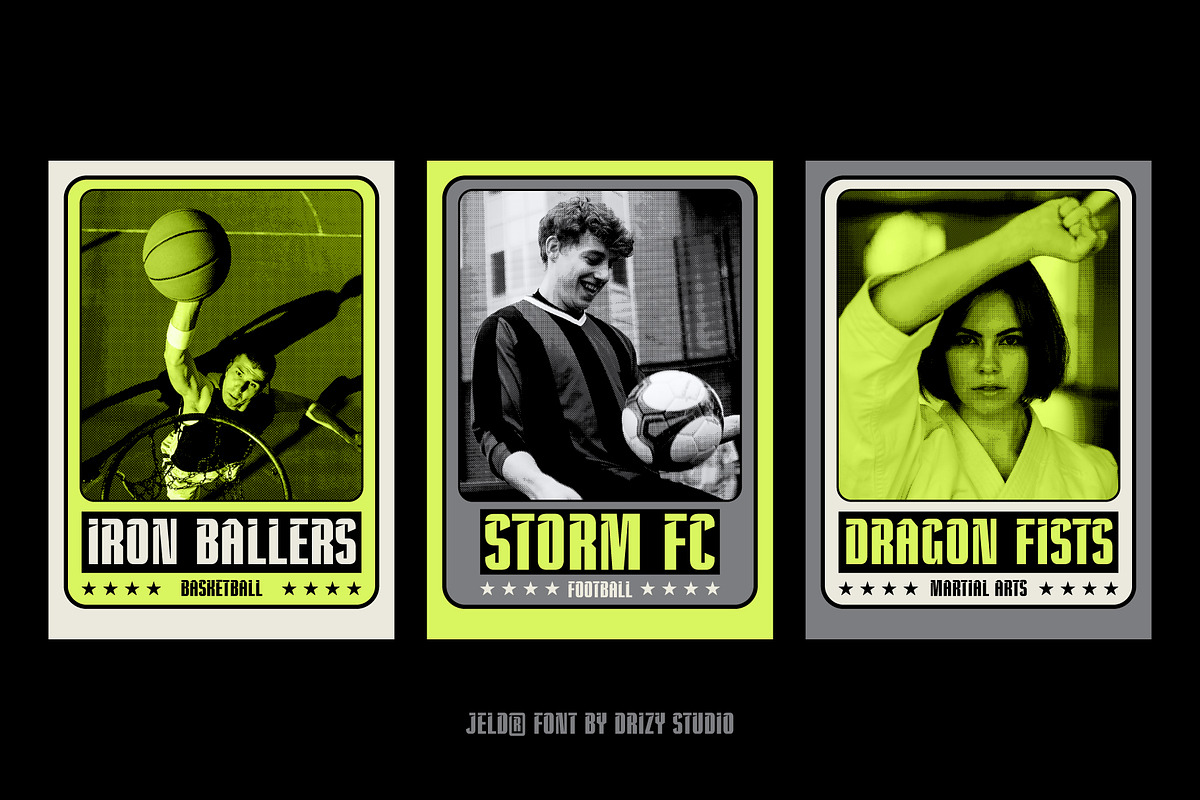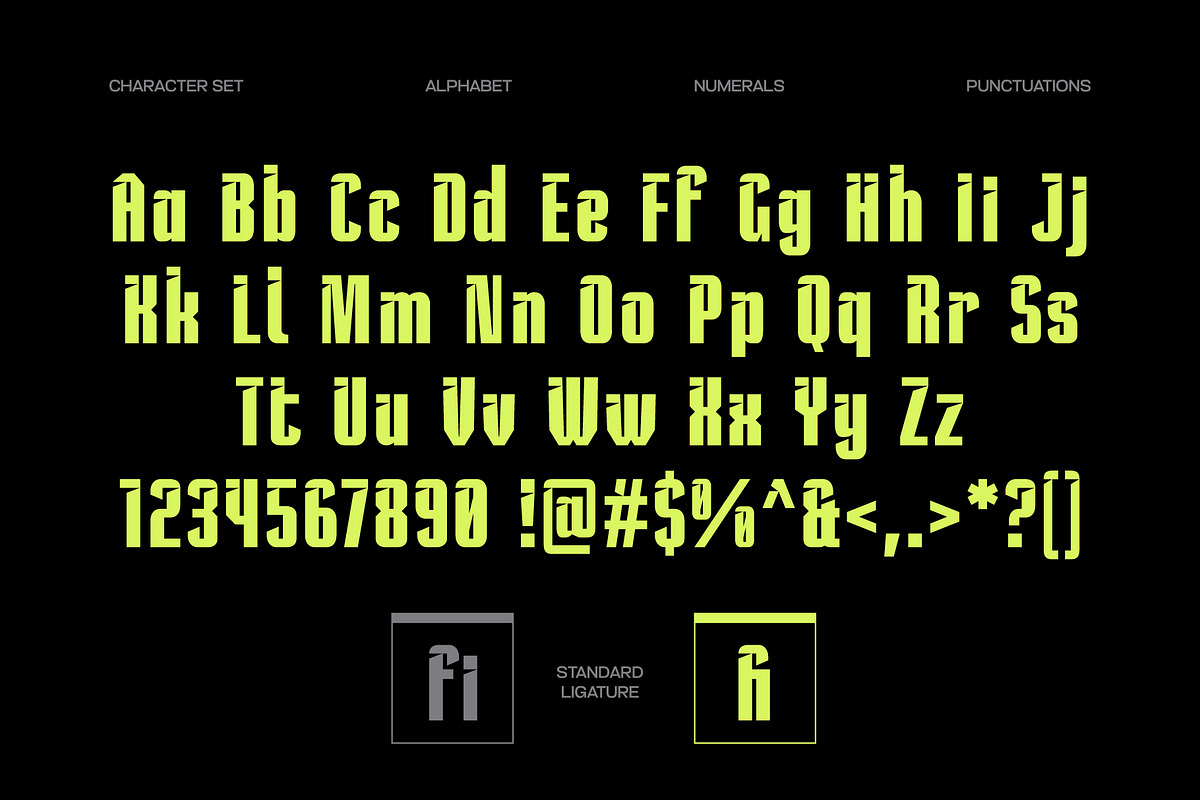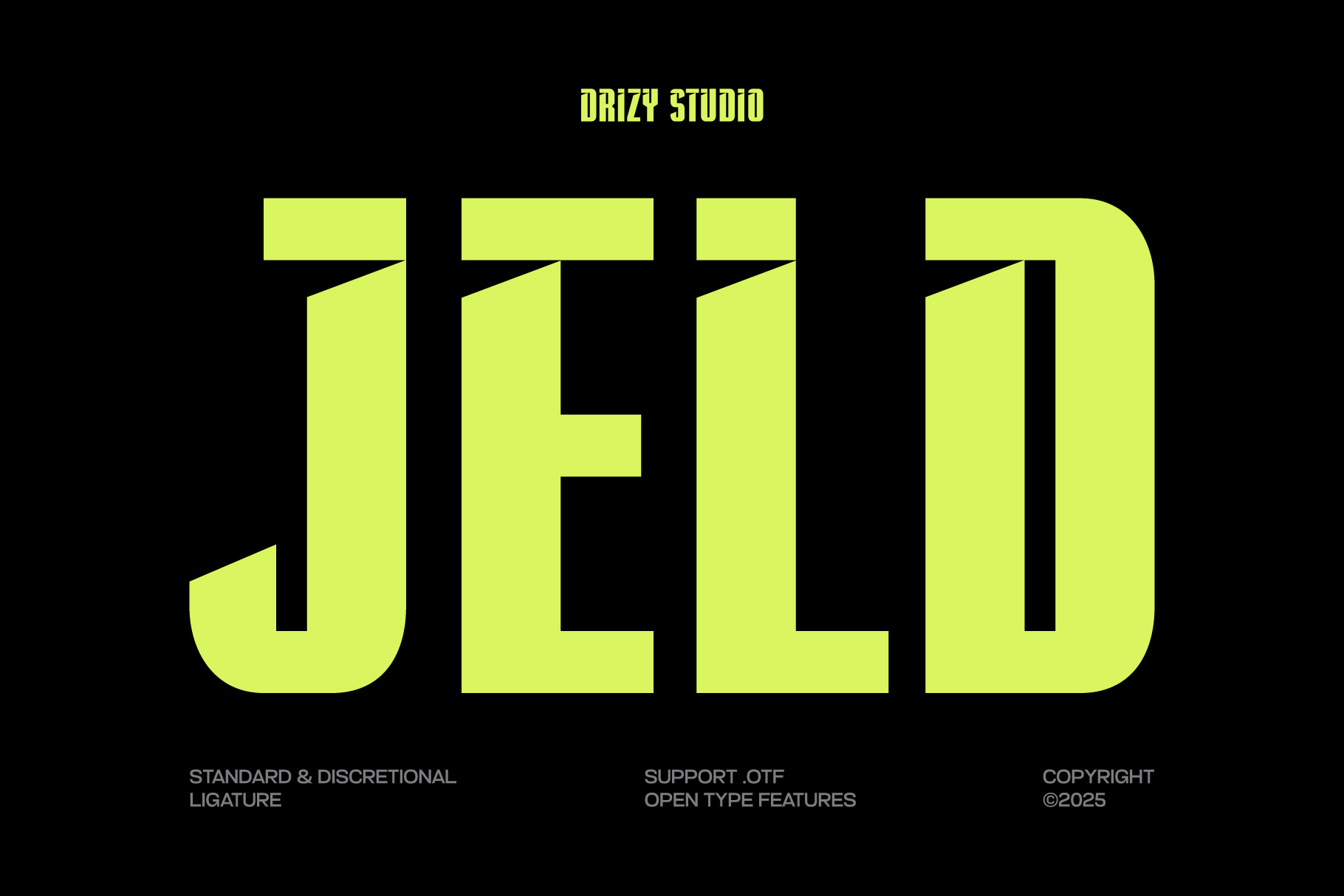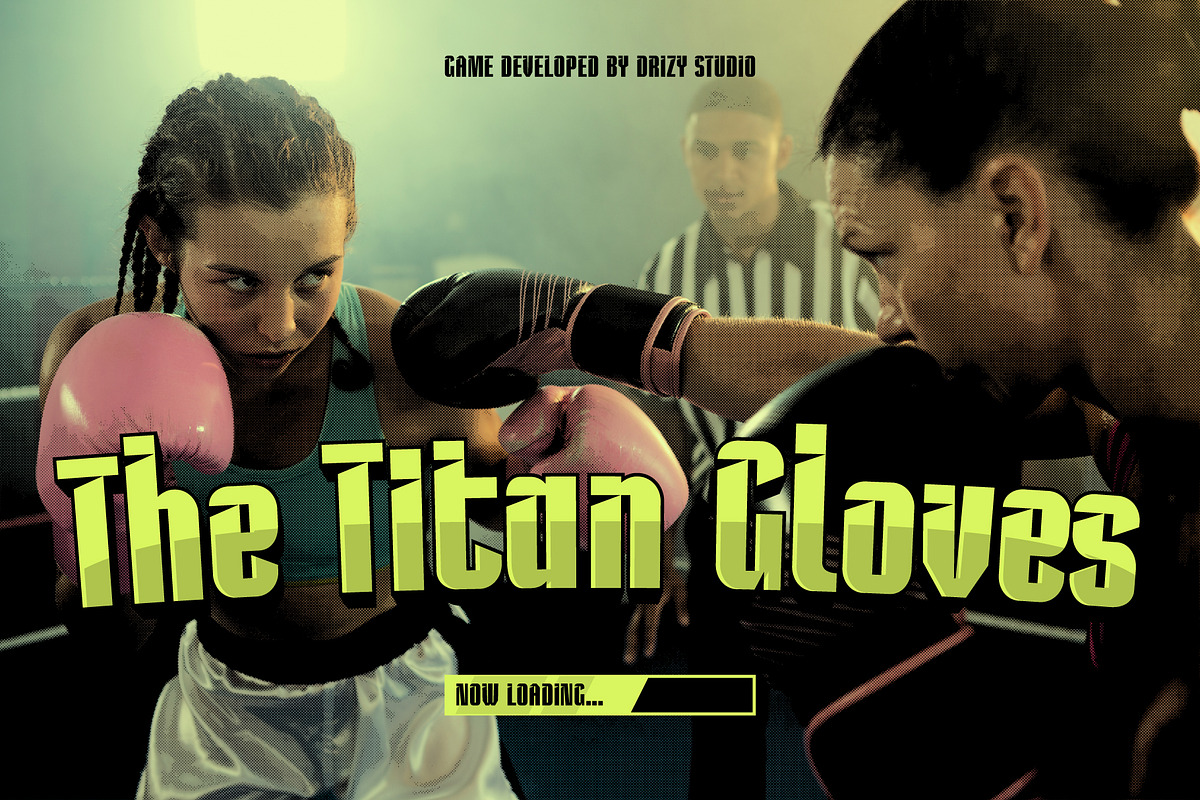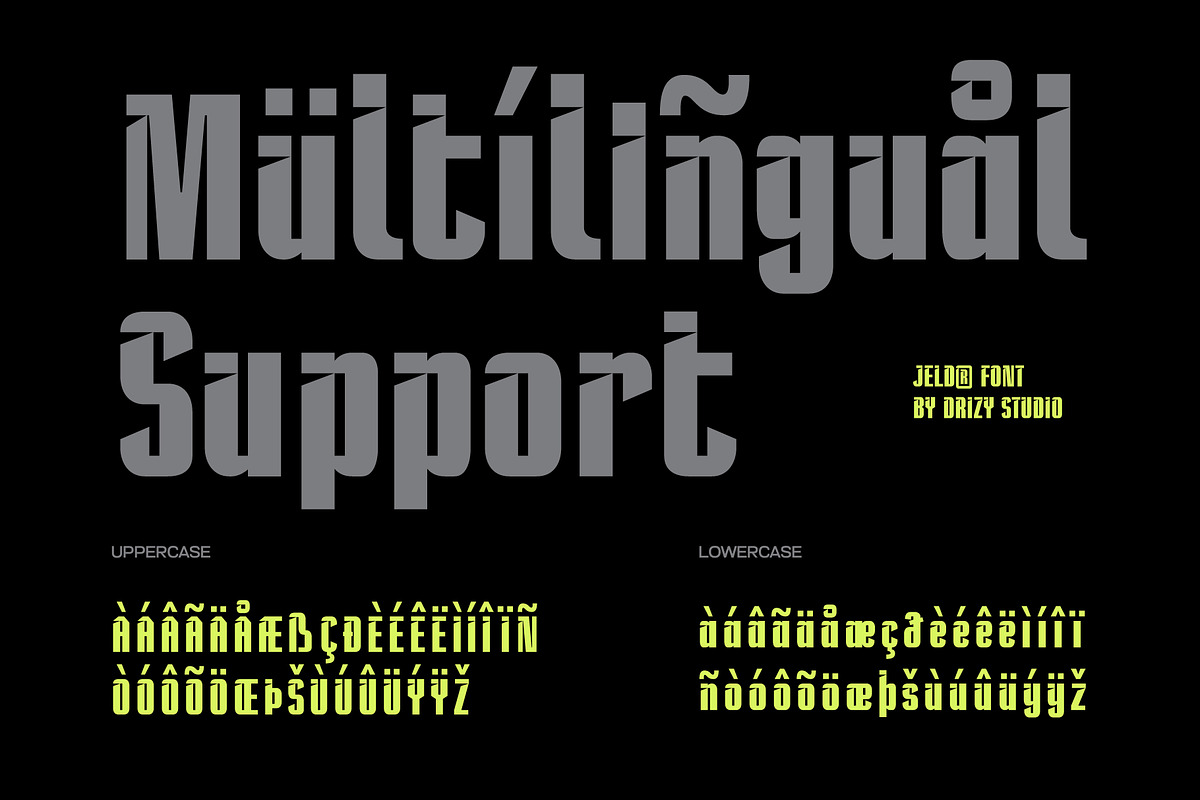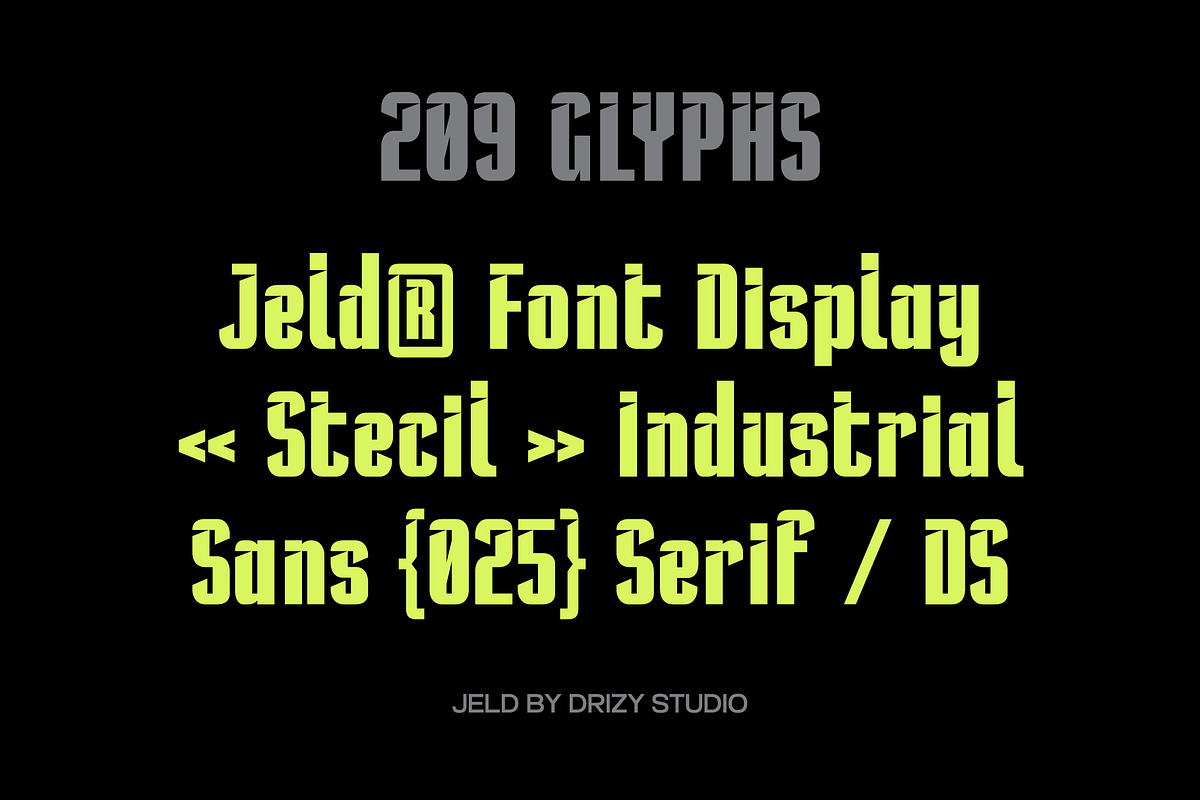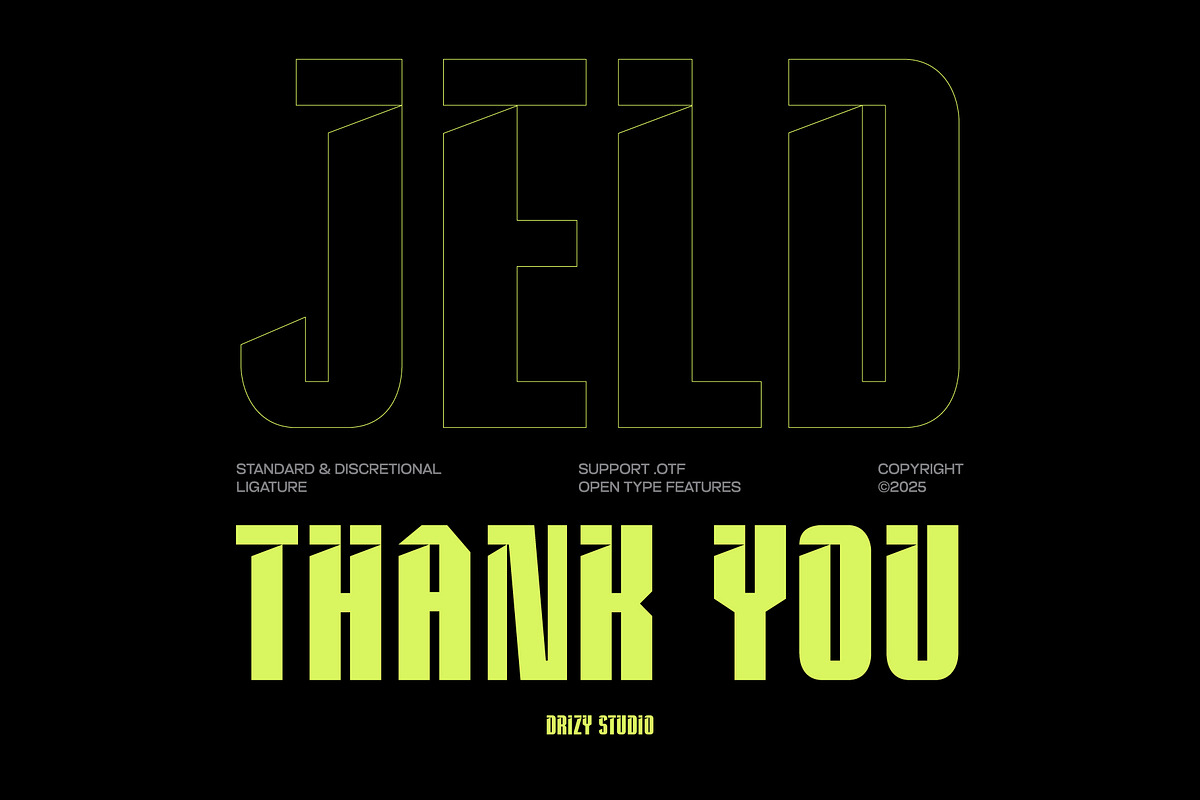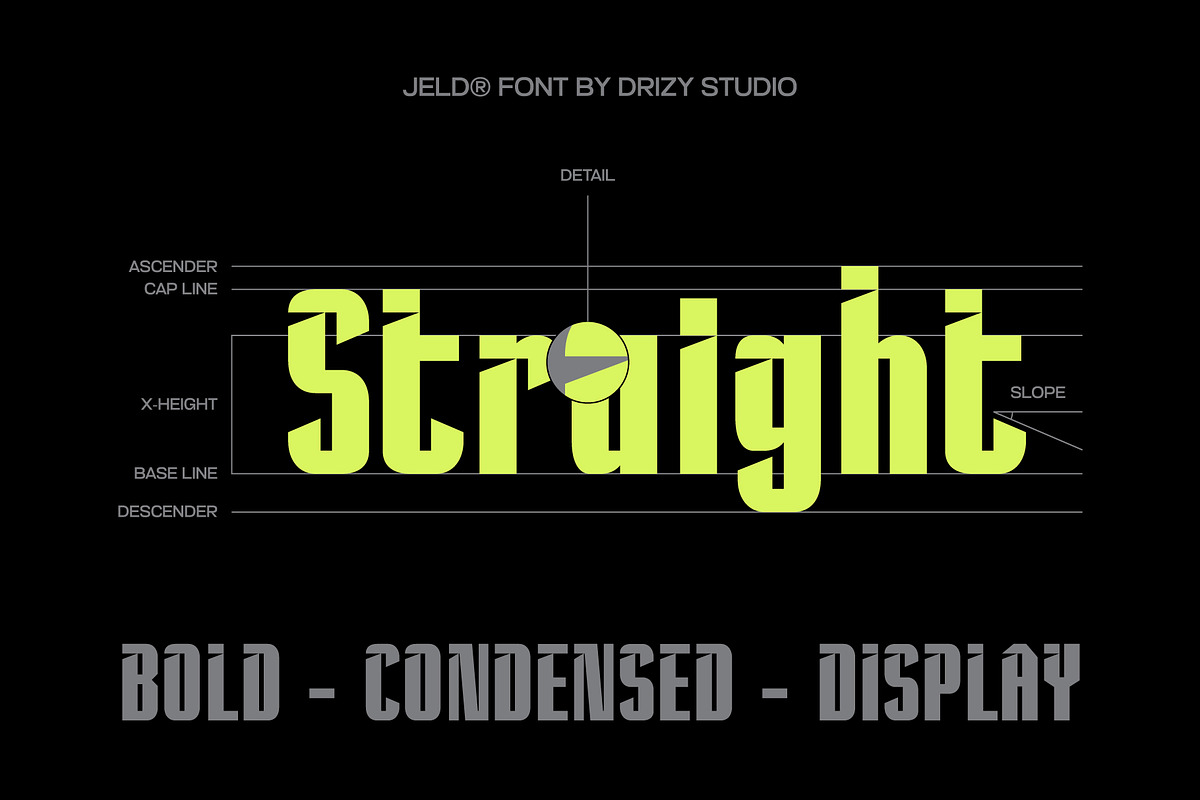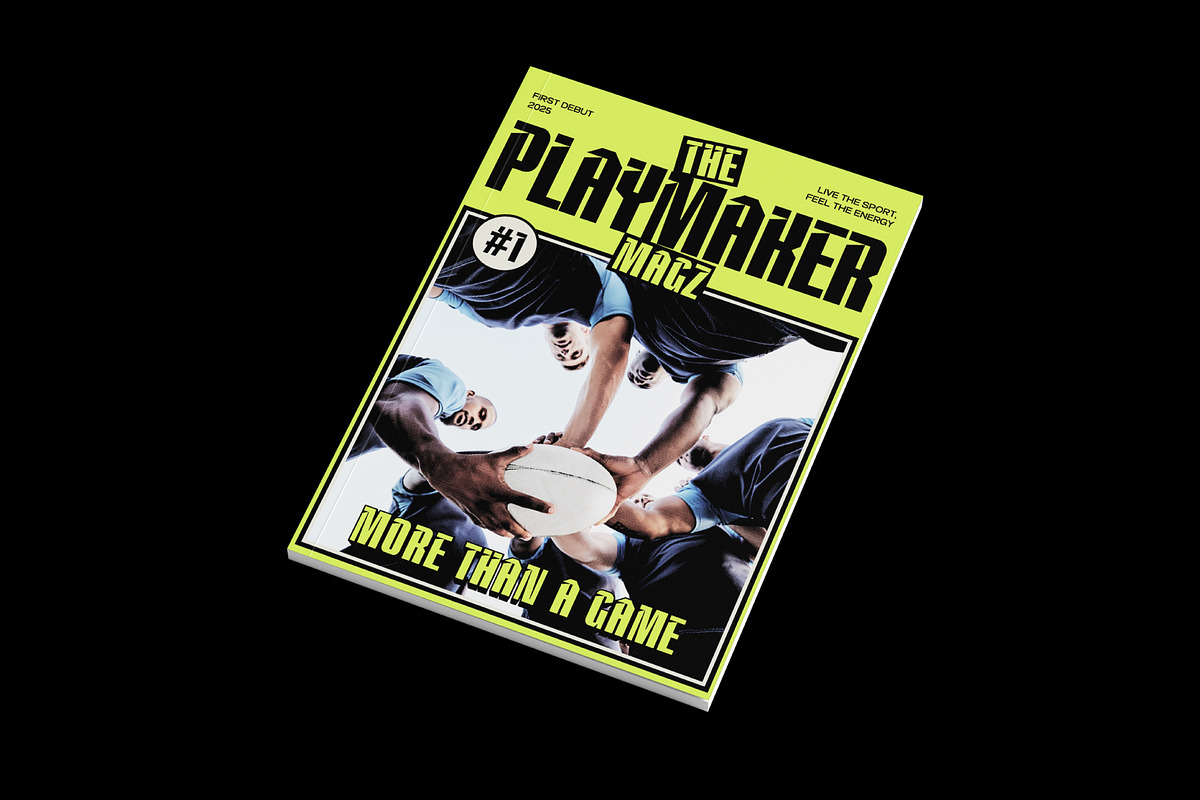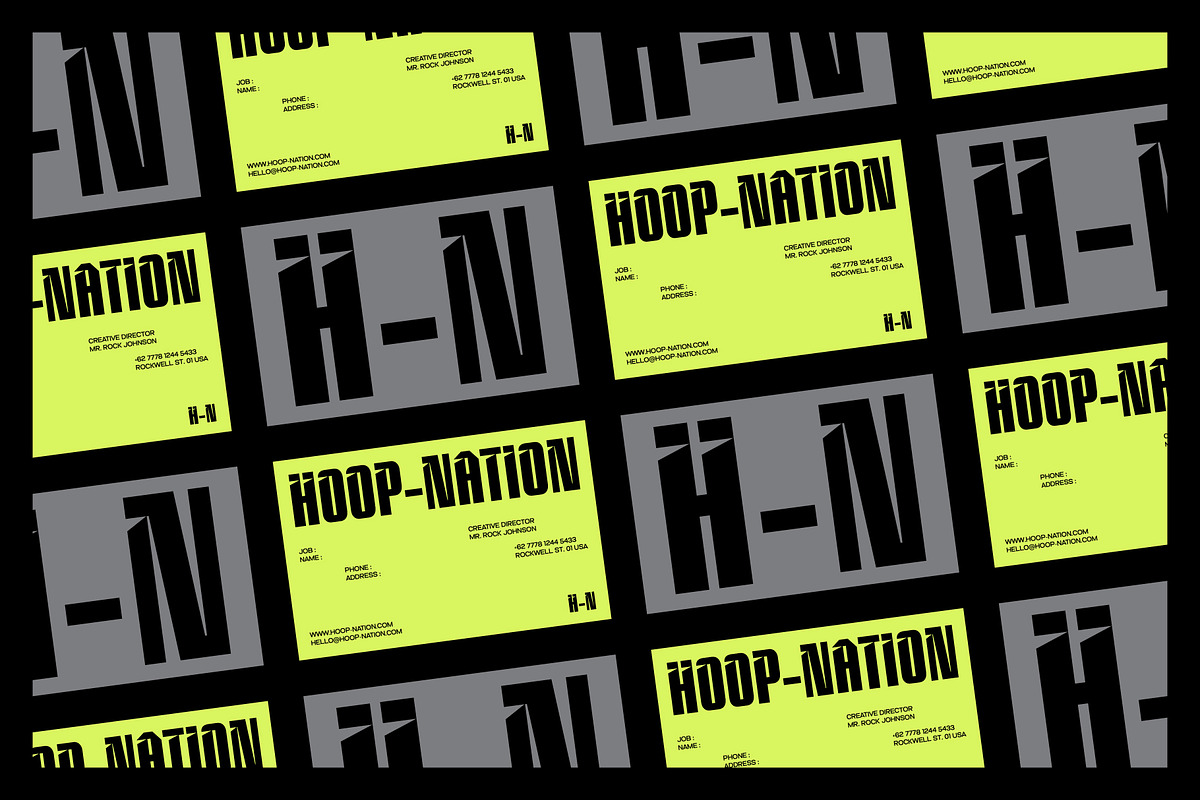
Jeld – Modern Condensed Sport Font
Jeld is a sleek and powerful Modern Clean Sans Serif, designed to bring energy and boldness to any project. With its clean lines, tight spacing, and contemporary sans-serif style, Jeld exudes speed, strength, and precision perfect for sports. Its sharp edges and strong letterforms make it a go-to choice for projects that demand impact while maintaining readability. Jeld – Modern Condensed Sport Font delivers a professional and modern look with a competitive edge. Unleash the power of Jeld and give your designs a bold, athletic, and unstoppable feel!
Jeld – Modern Condensed Sport Font features:
- Character Set (Uppercase & Lowercase)
- Punctuation & Numbers
- Standard & Discretional ligatures